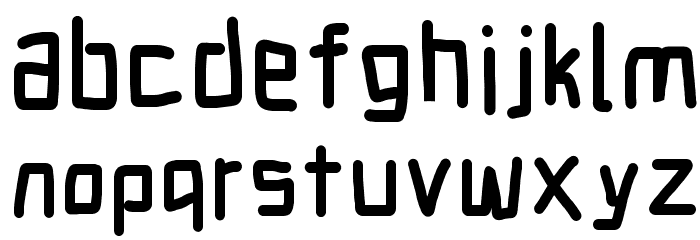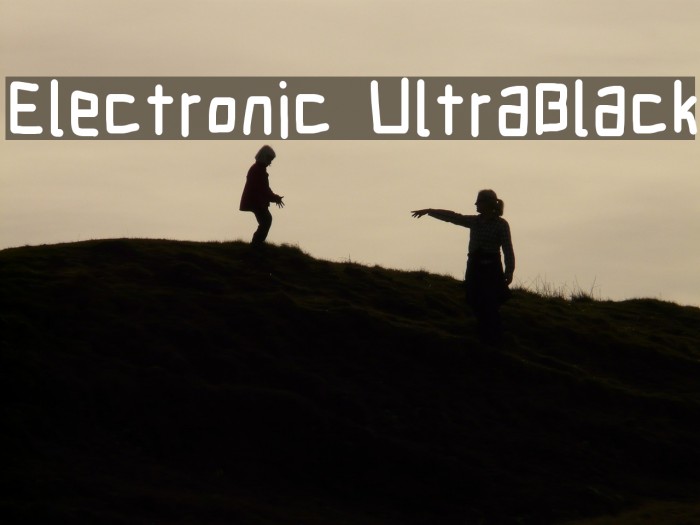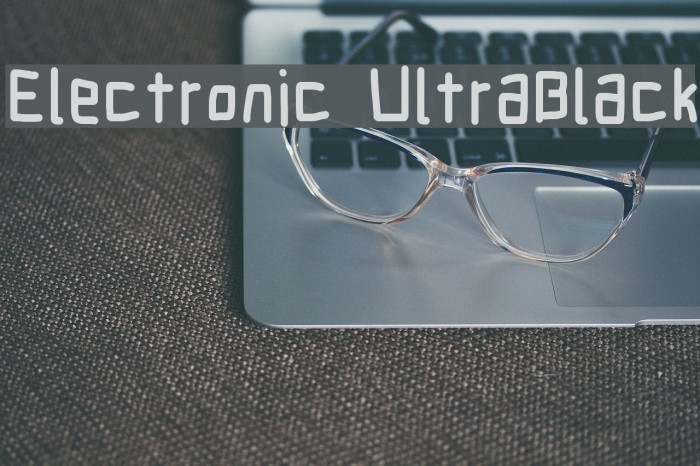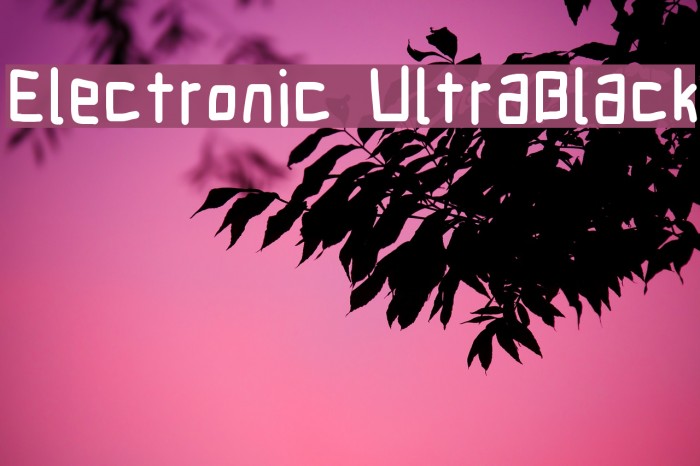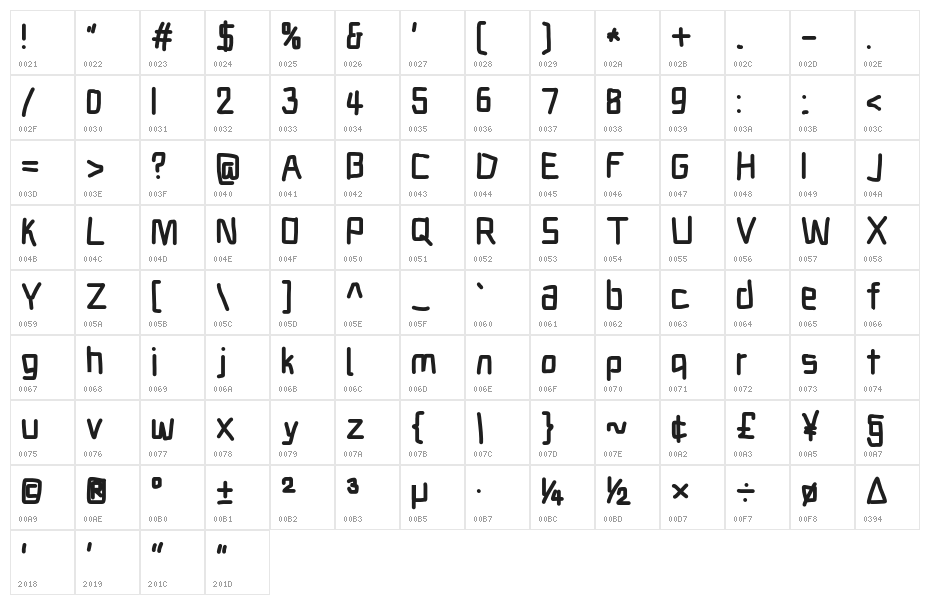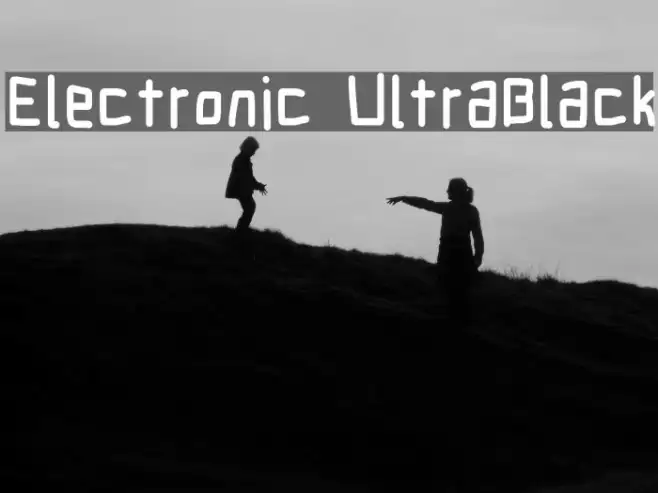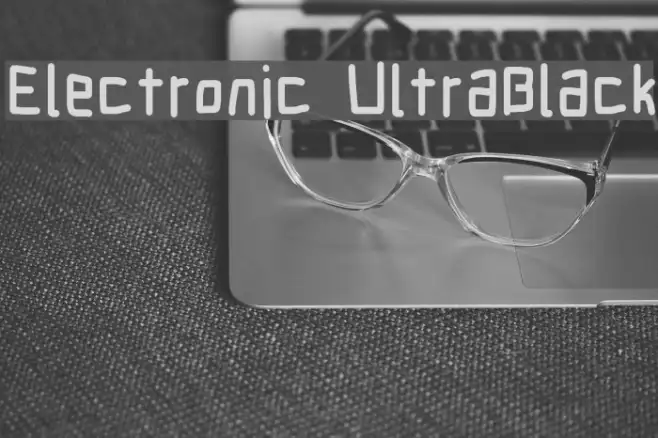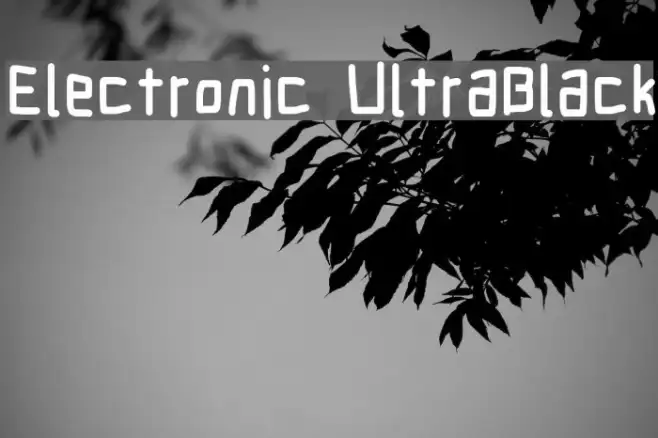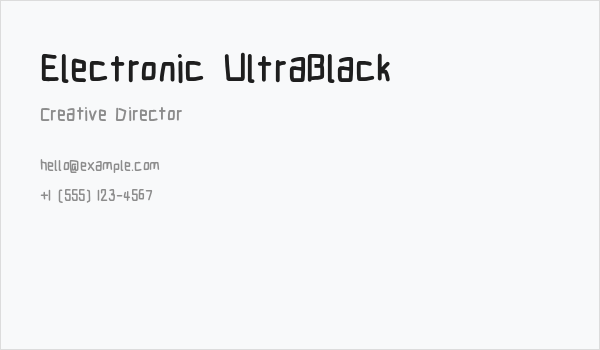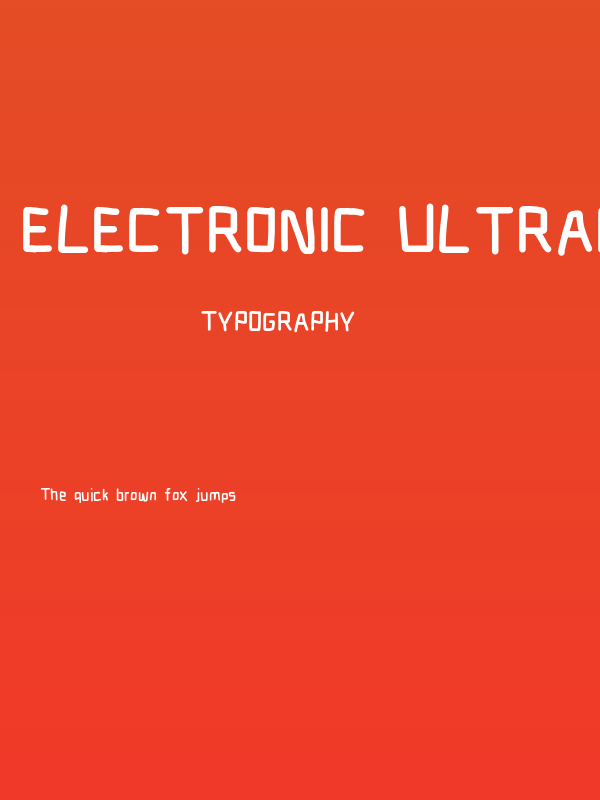
Electronic UltraBlack Font
This font features a bold and modern design with a geometric and slightly rounded appearance. The uppercase and lowercase letters maintain a consistent thickness, giving it a uniform look. The characters are slightly condensed, which adds to its compact and efficient style. The numerals and special characters follow the same design principles, ensuring a cohesive appearance across all glyphs. The font's strong presence makes it suitable for attention-grabbing headlines and impactful designs. Its unique style is both contemporary and versatile, making it ideal for various creative projects.
A bold, modern font with geometric and slightly rounded characters.
- Proposed Projects: Ideal for branding, posters, digital media, and modern web design.